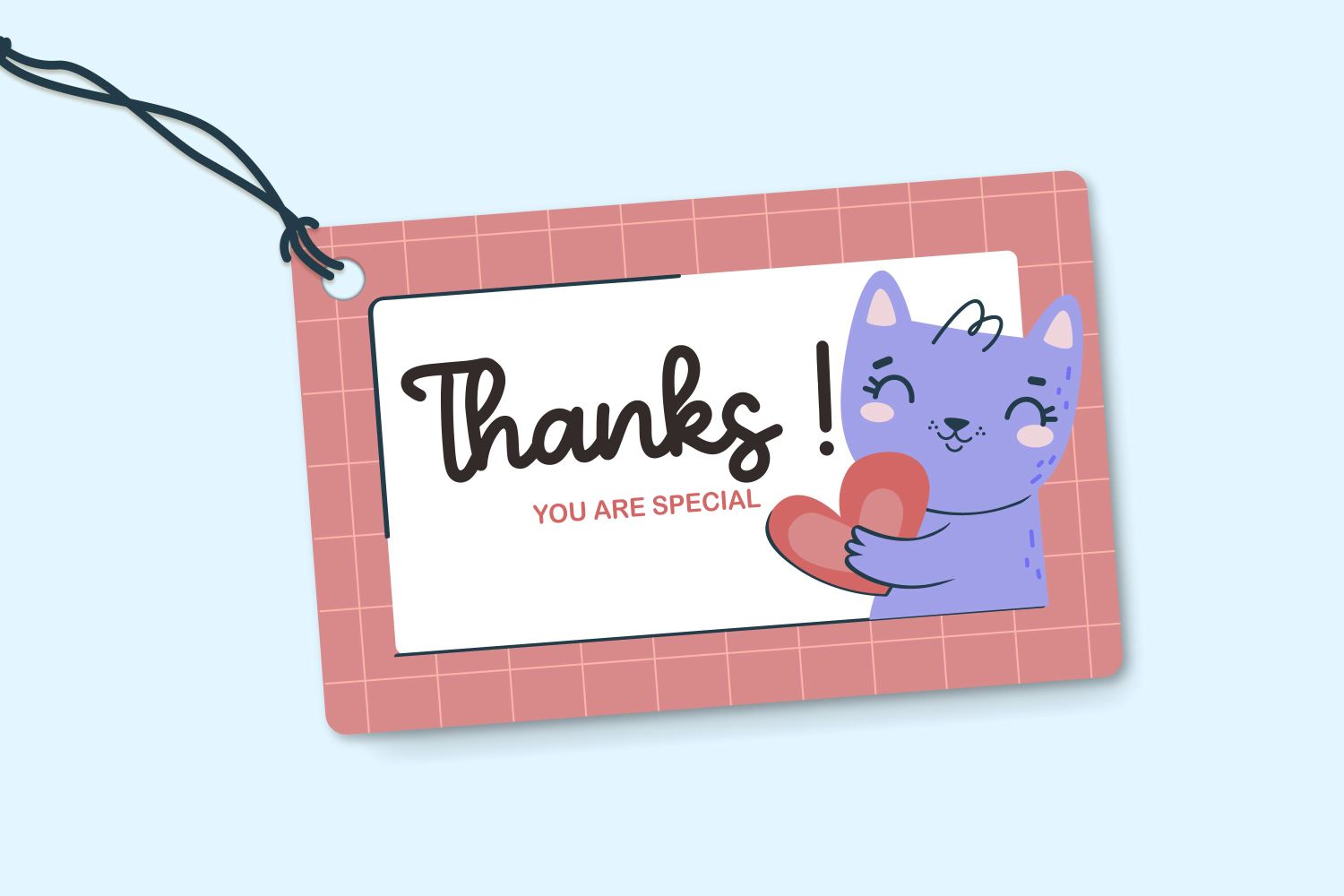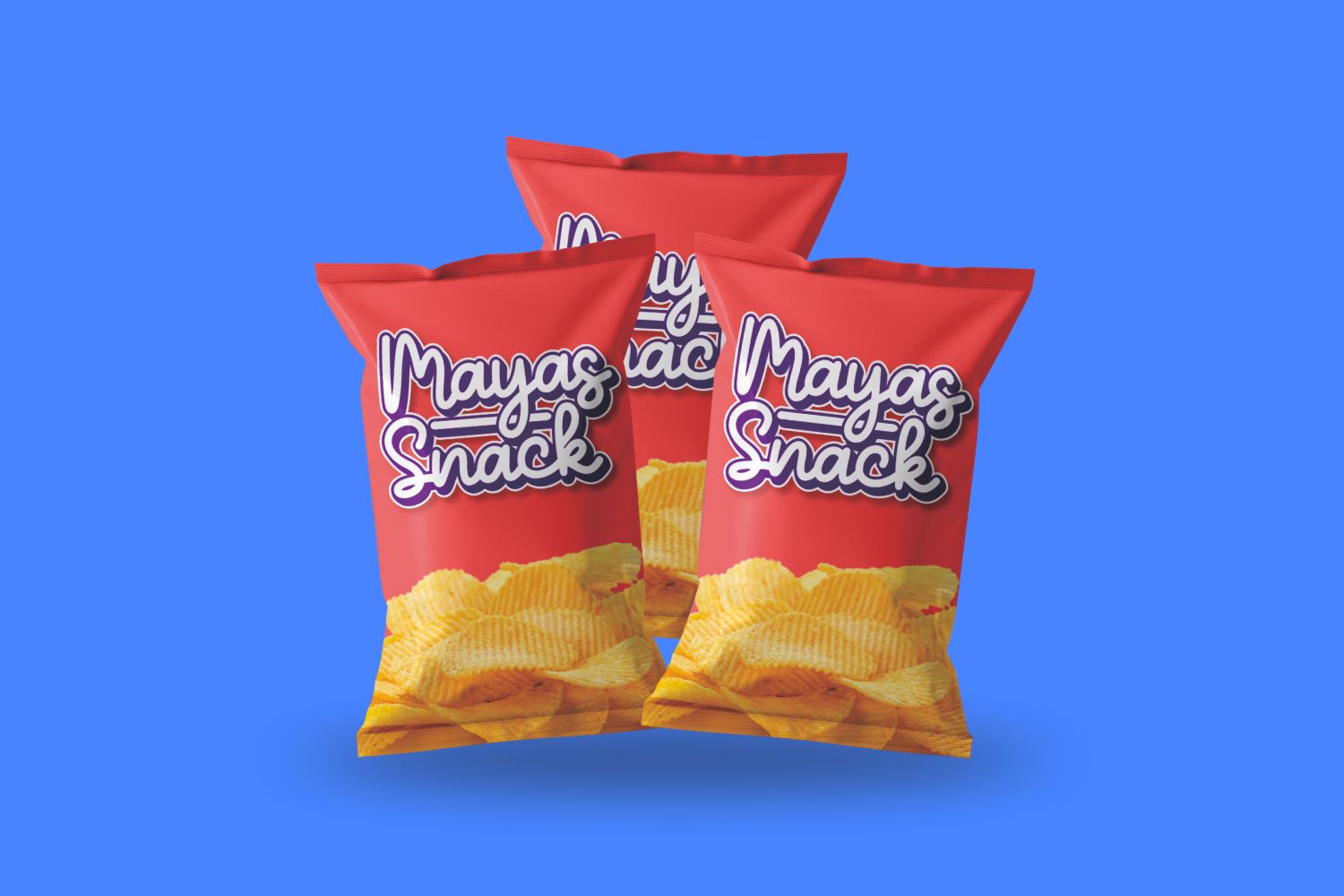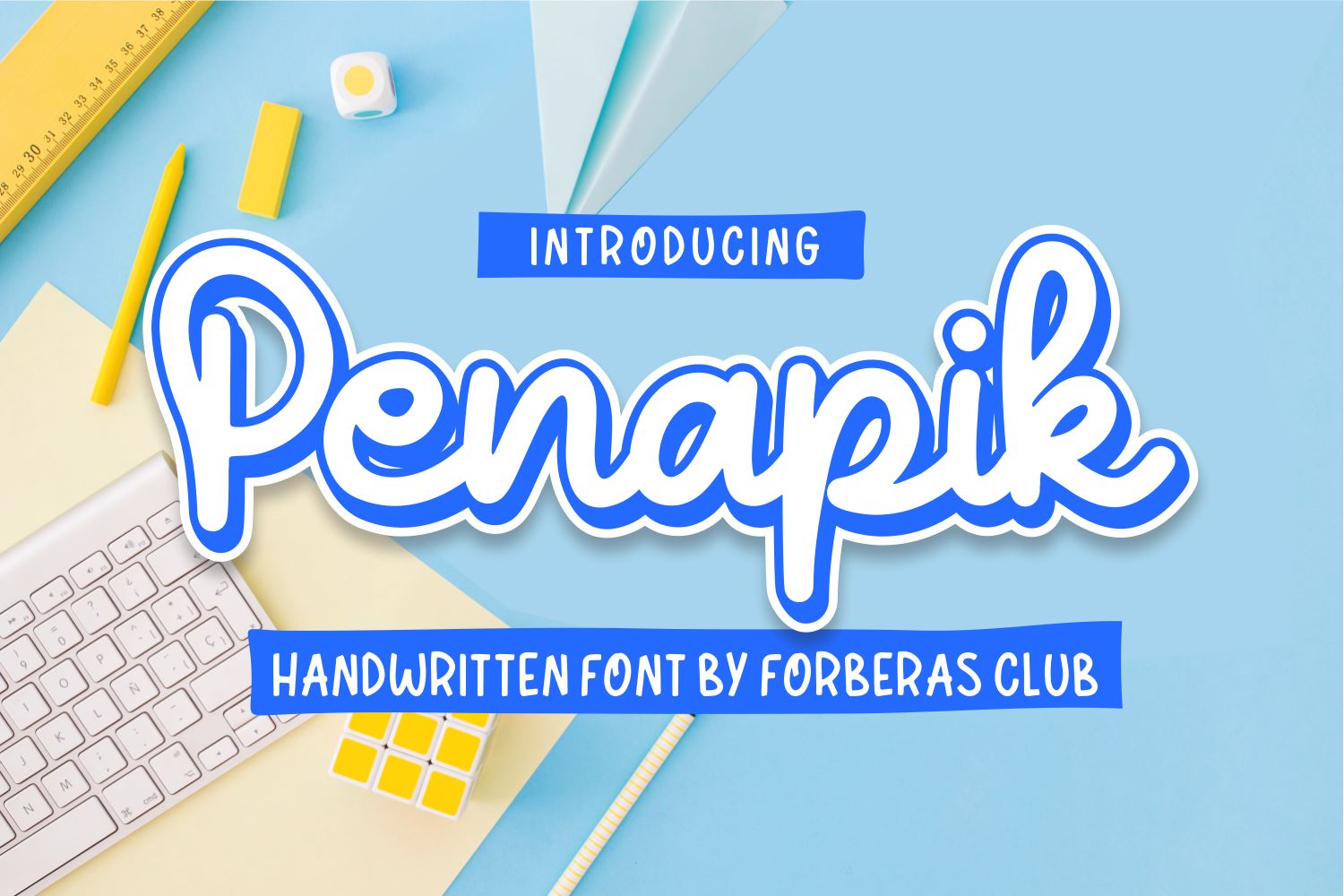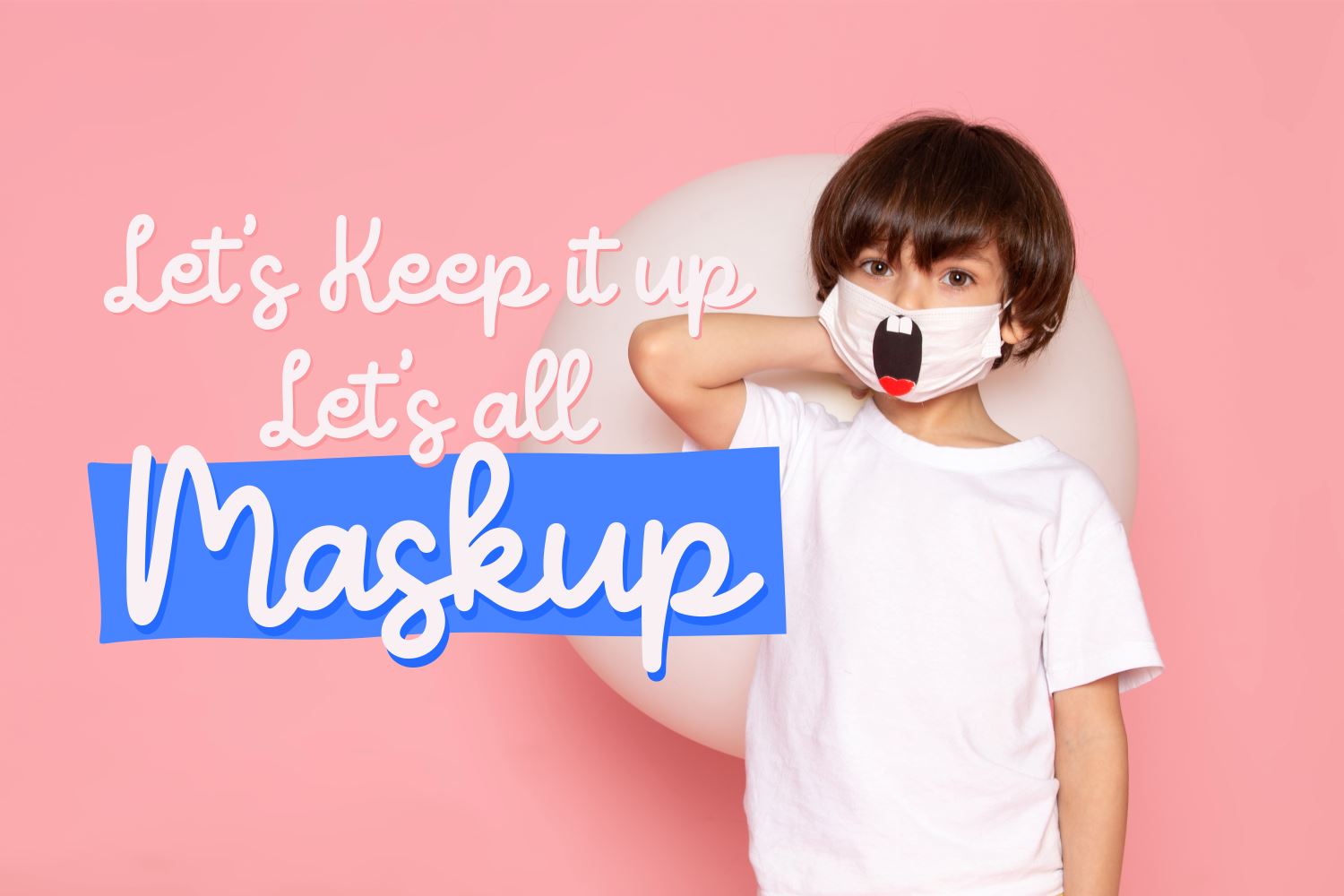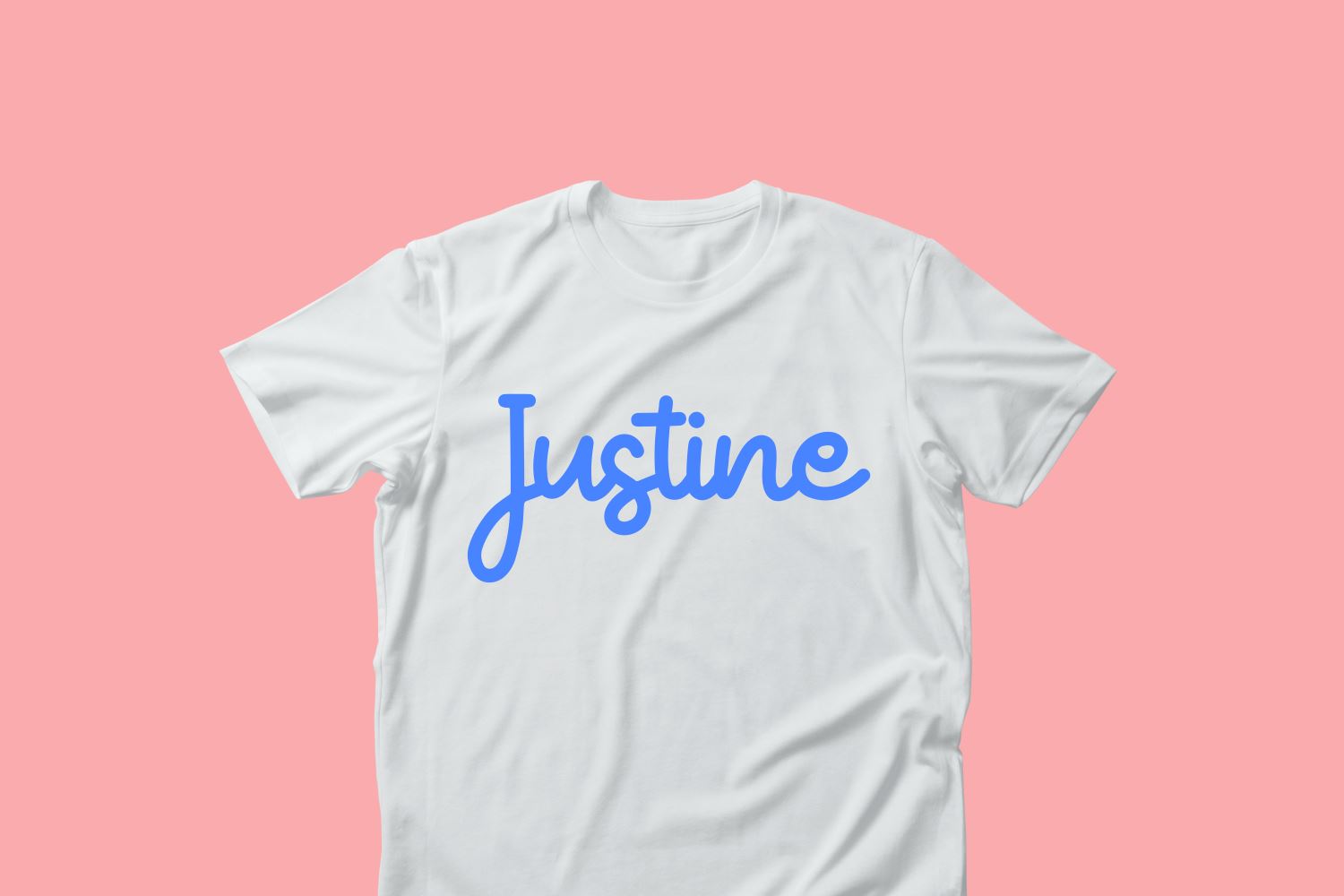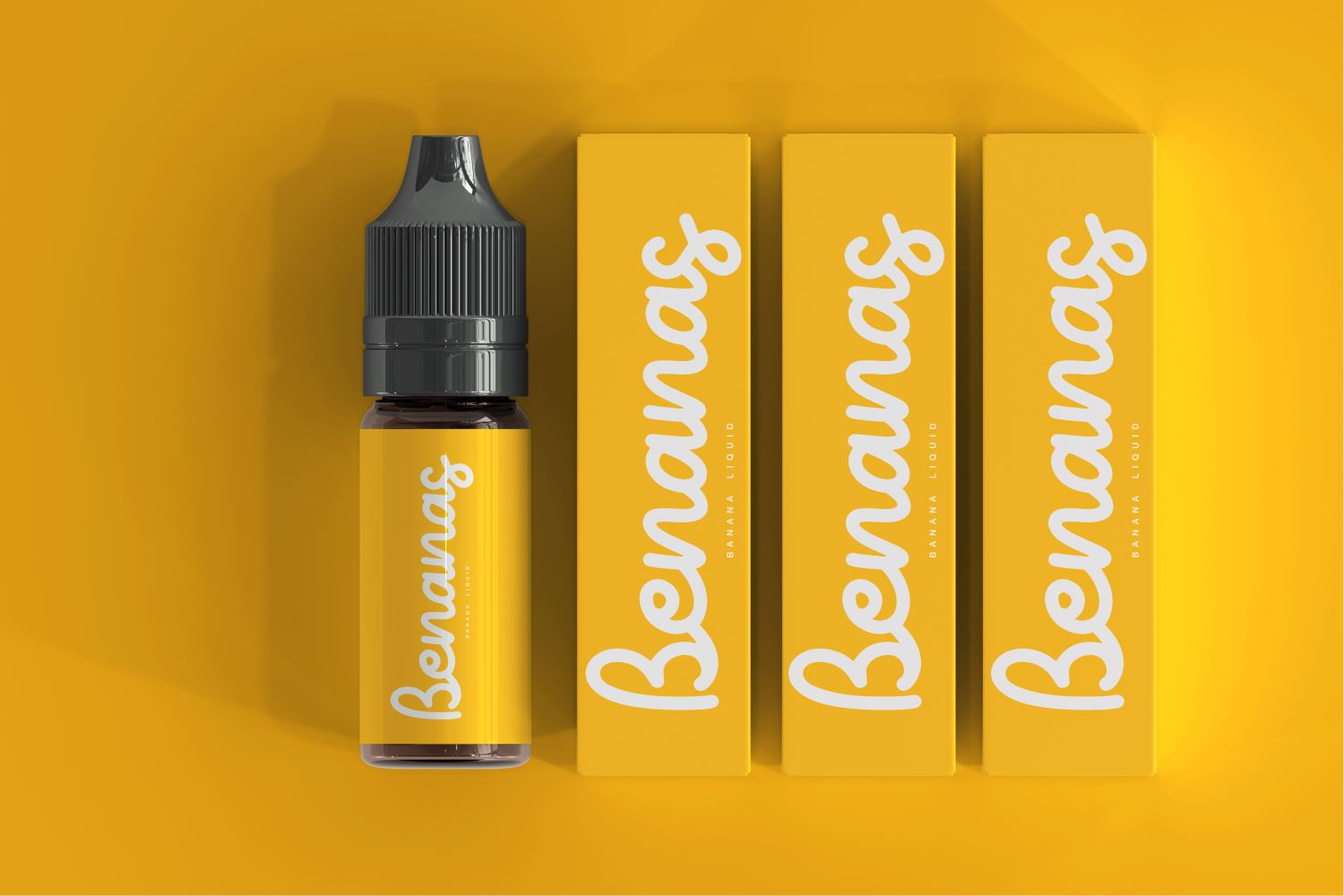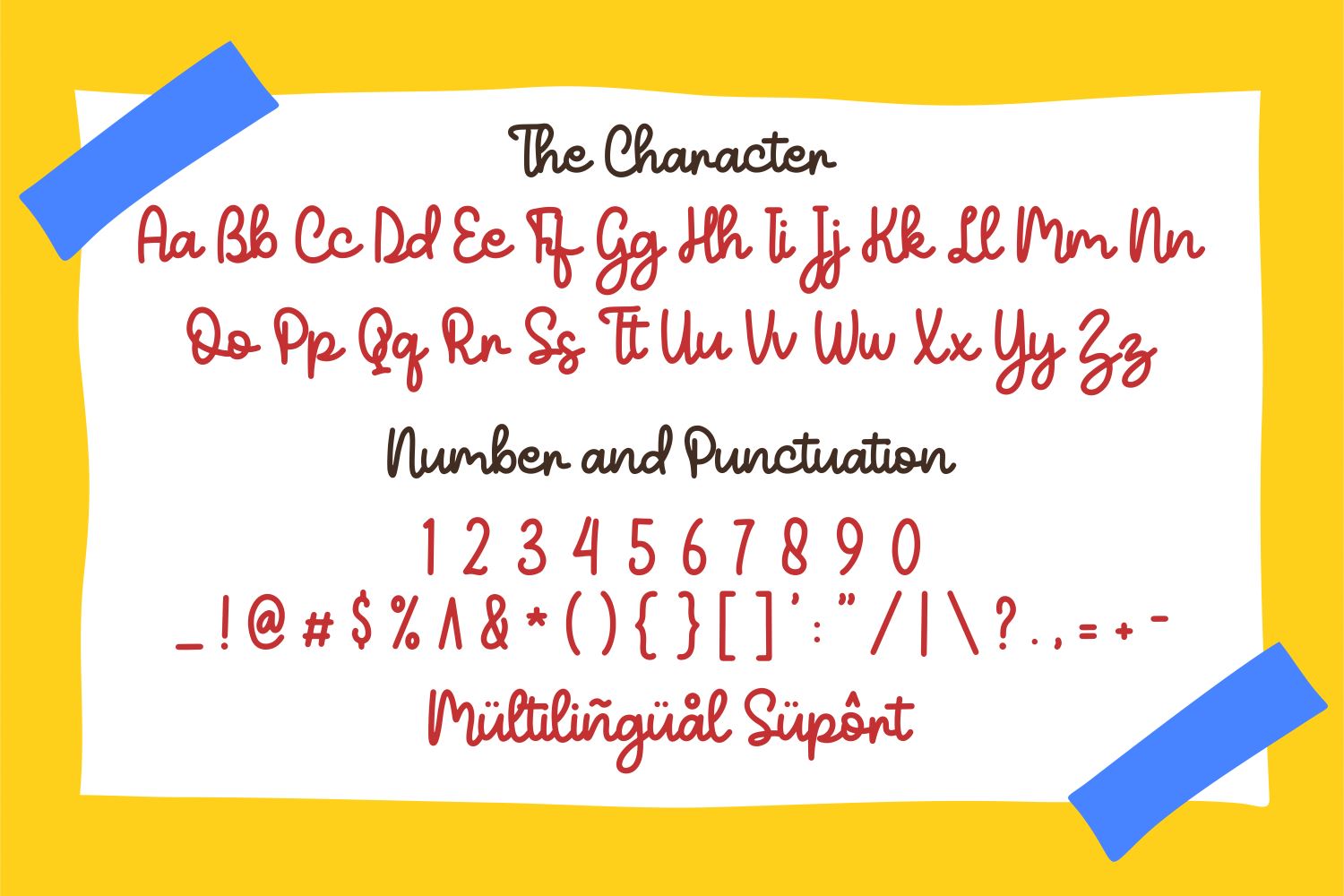
Penapik
About Penapik
Introducing Penapik Font by Forberas Club Penapik is a Modern Handwritten Font. Penapik perfect for book cover, product packaging, branding project, megazine, social media, kisd book fonts, or just used to express words above the background. This font includes TTF and OTF, This font also multilingual support.